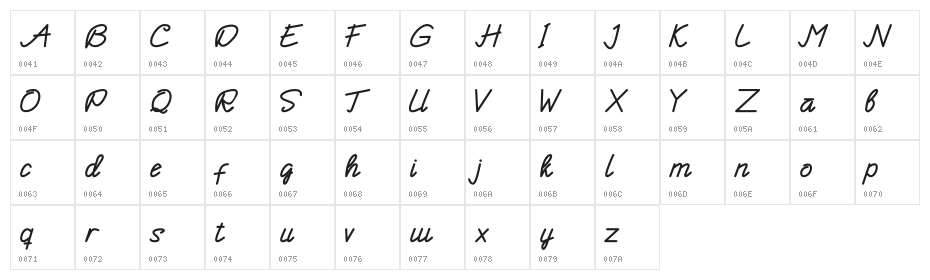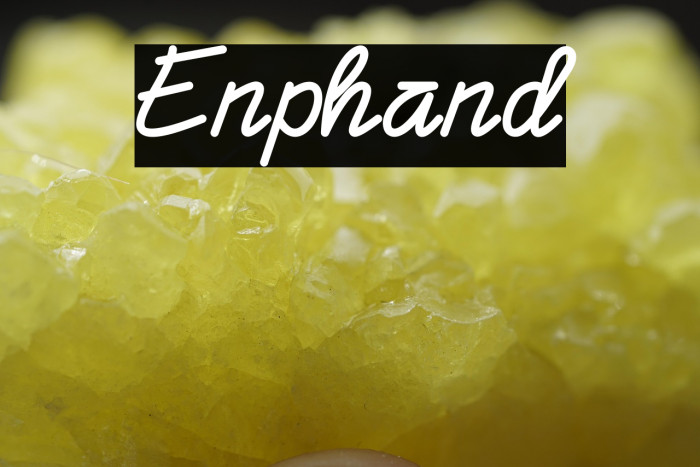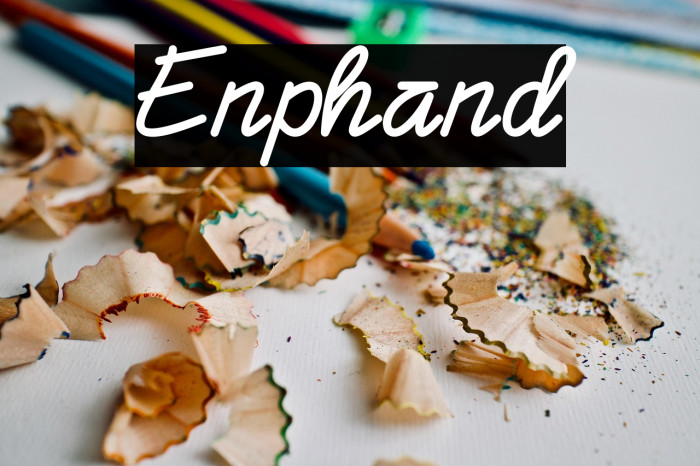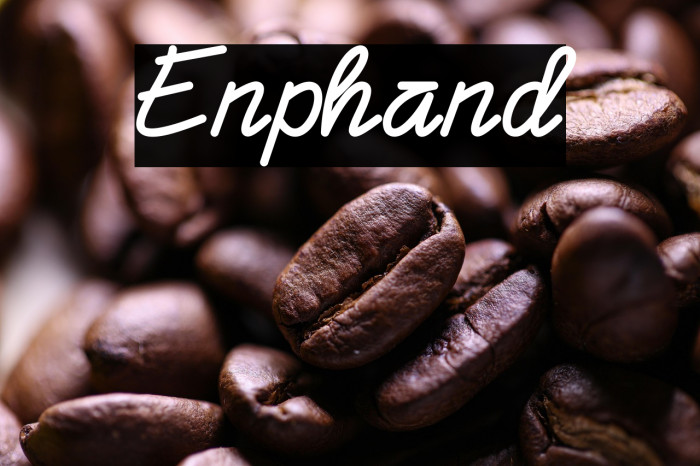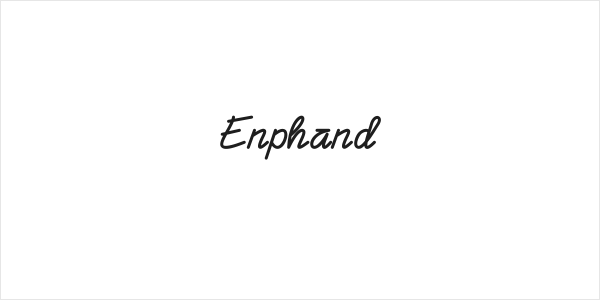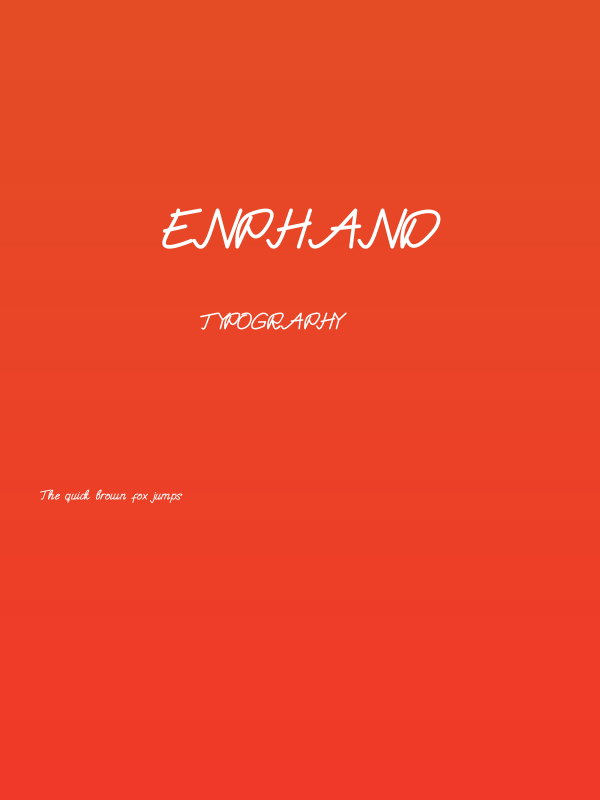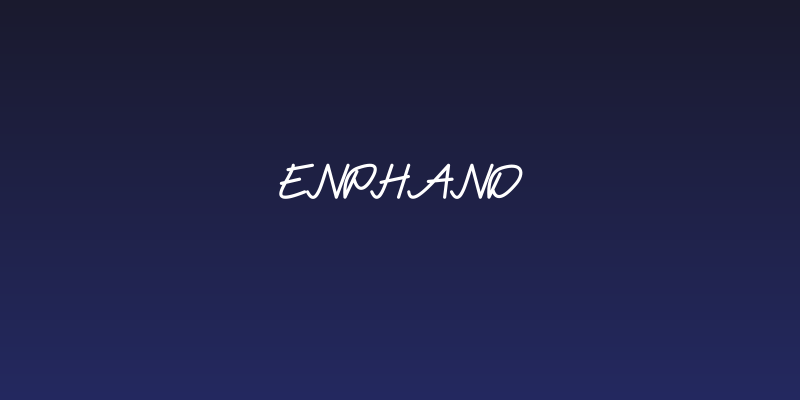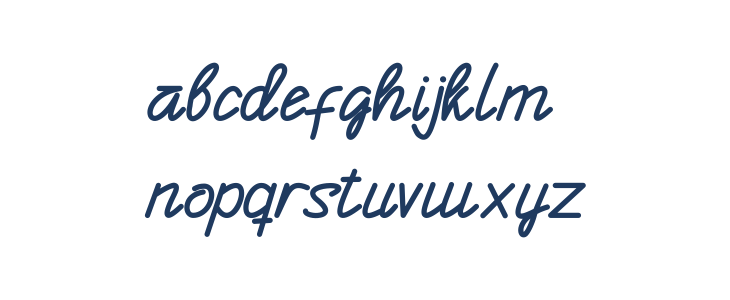
Enphand Font
Enphand Description
This font features a flowing, cursive style with smooth, continuous strokes that mimic natural handwriting. The uppercase letters are elegantly looped, while the lowercase letters maintain a consistent slant, enhancing the handwritten effect. The characters are well-proportioned, with a slight inclination that adds a dynamic feel. The font's overall appearance is both casual and sophisticated, making it versatile for various design needs. The spacing between characters is balanced, ensuring readability while maintaining its artistic flair. This font's unique style is suitable for projects that require a personal touch, such as invitations, greeting cards, and branding materials.
| Overall Style | Casual, Sophisticated |
| Use Case | Invitations, Greeting cards, Branding |
| Proposed Projects | Ideal for invitations, greeting cards, personal branding, and artistic projects. |